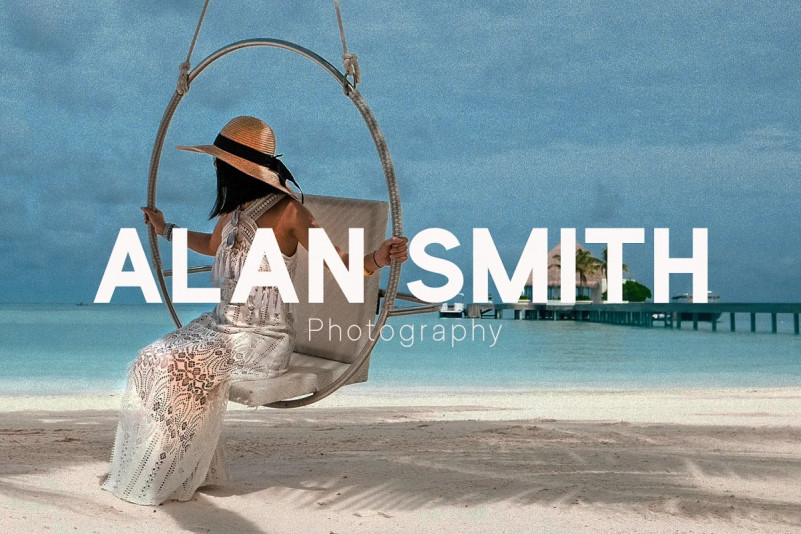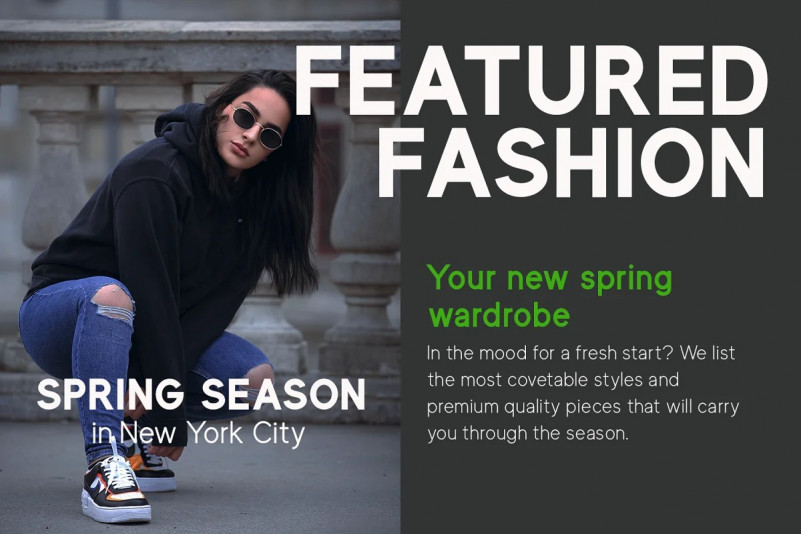
Morphin Sans Font
Inspired by the new 2019 logo of the ‘Power Rangers’ franchise and the cover logo of the ‘Mighty Morphin’ comic series launched in 2020 by BOOM! Studios.